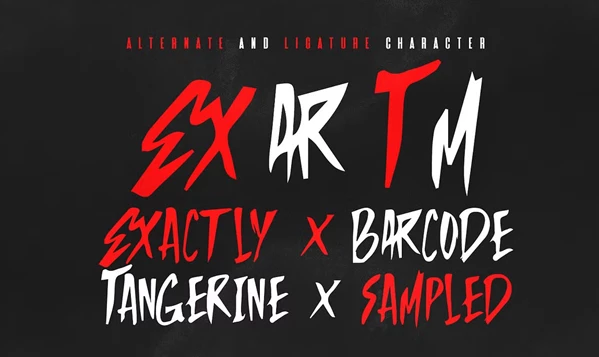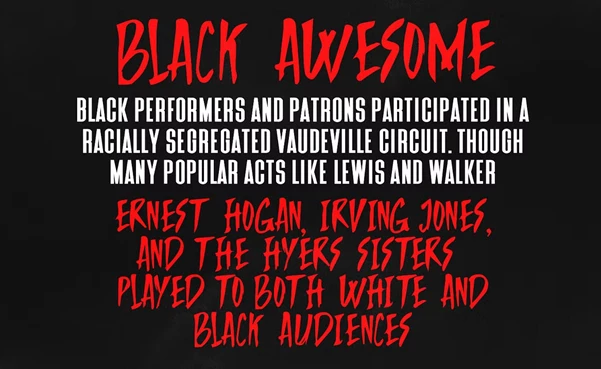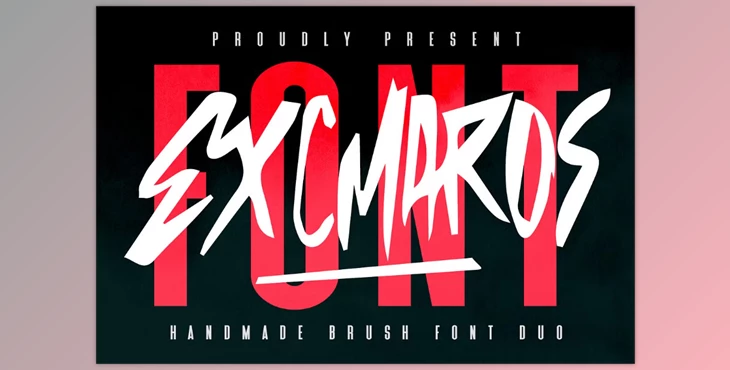
Excmaros Handmade Brush Font Duo:
The Excmaros Handmade Brush Font Duo is a typeface collection tailored to lend an authentic, handmade look to creative designs. Great for signatures, branding, logos, and stationery, this duo pairs a clean sans font with a dynamic brush style, capturing a flexible design system. Excmaros adds authenticity and charm to designs, regardless of whether they are meant for print or digital media.
- Font Duo: Contains Excmaros Brush and Excmaros Sans styles for design flexibility.
- Handcrafted Look: Natural, artistic appeal through organic brushstroke texture.
- Multi-purpose Use: Best for logo, branding, stationery, quotes, web header, and signature.
- Consistent Aesthetic Design: Achieve harmony across different media.
- Flexible Uses for Typography: Ideal for combining clean body text with expressive headers.